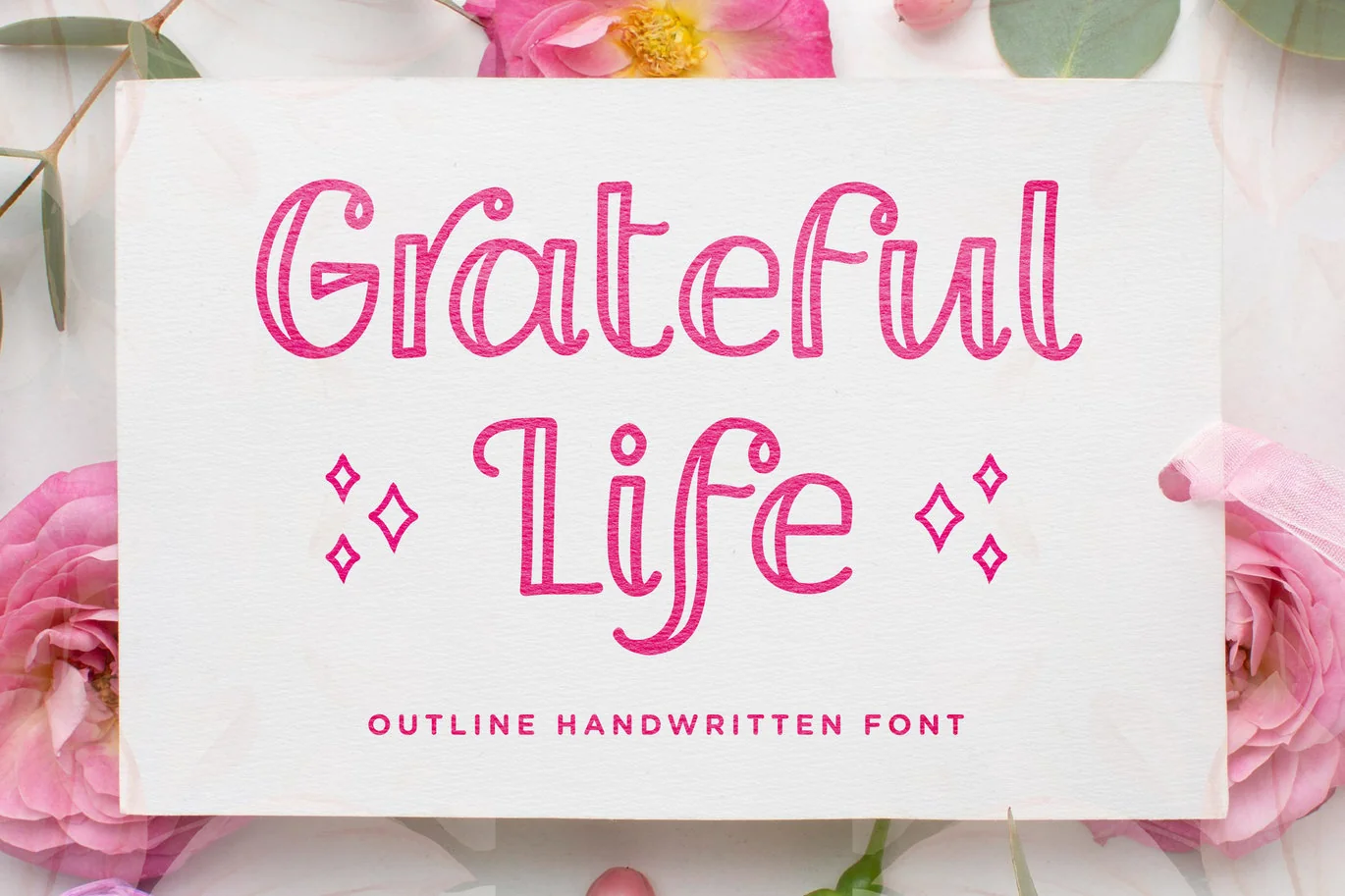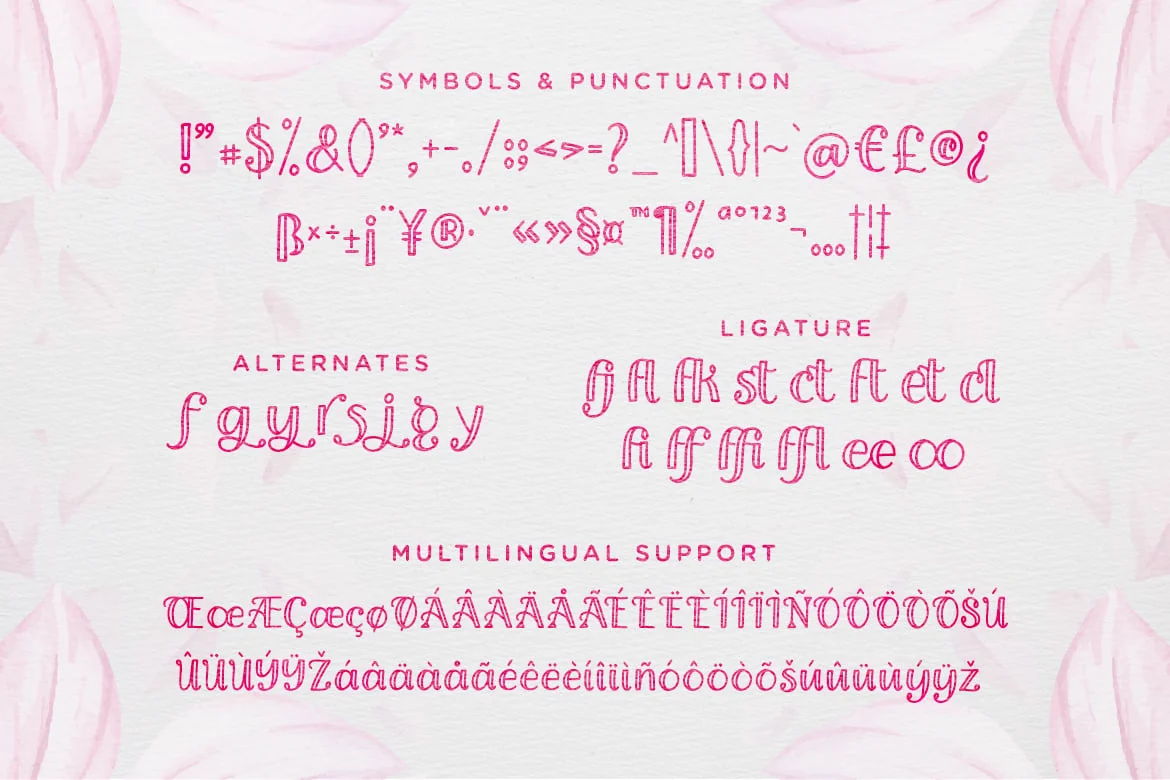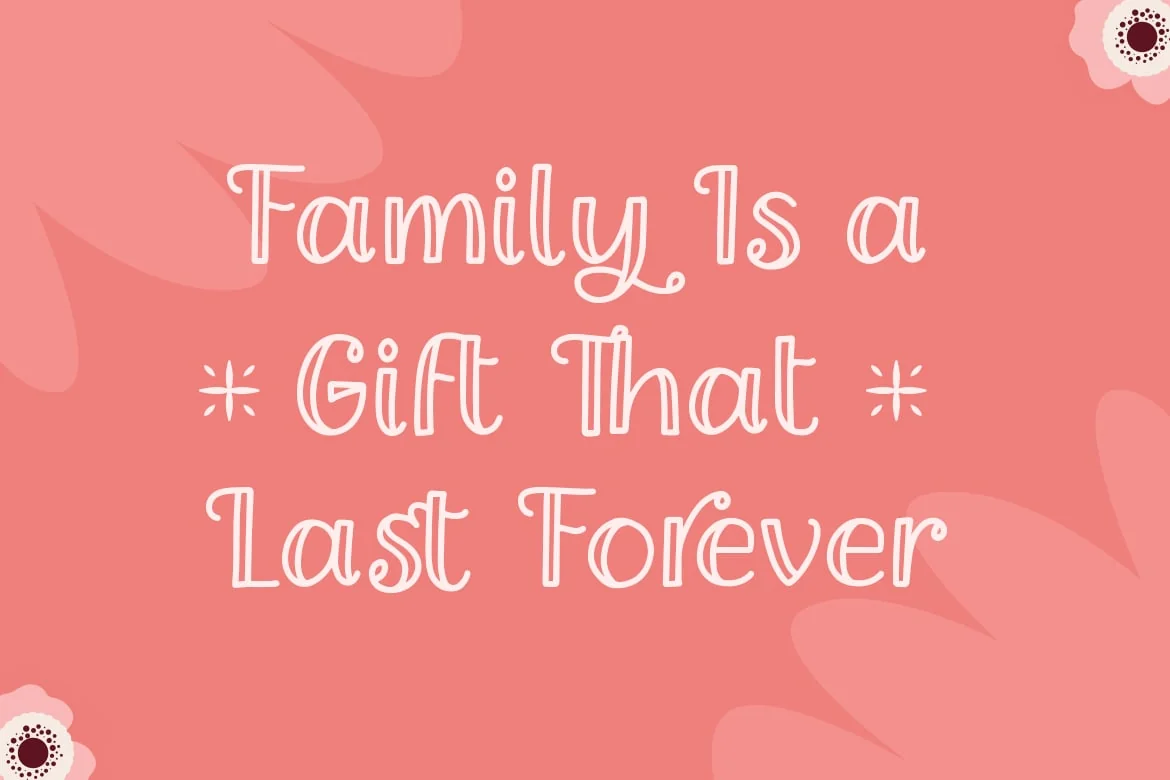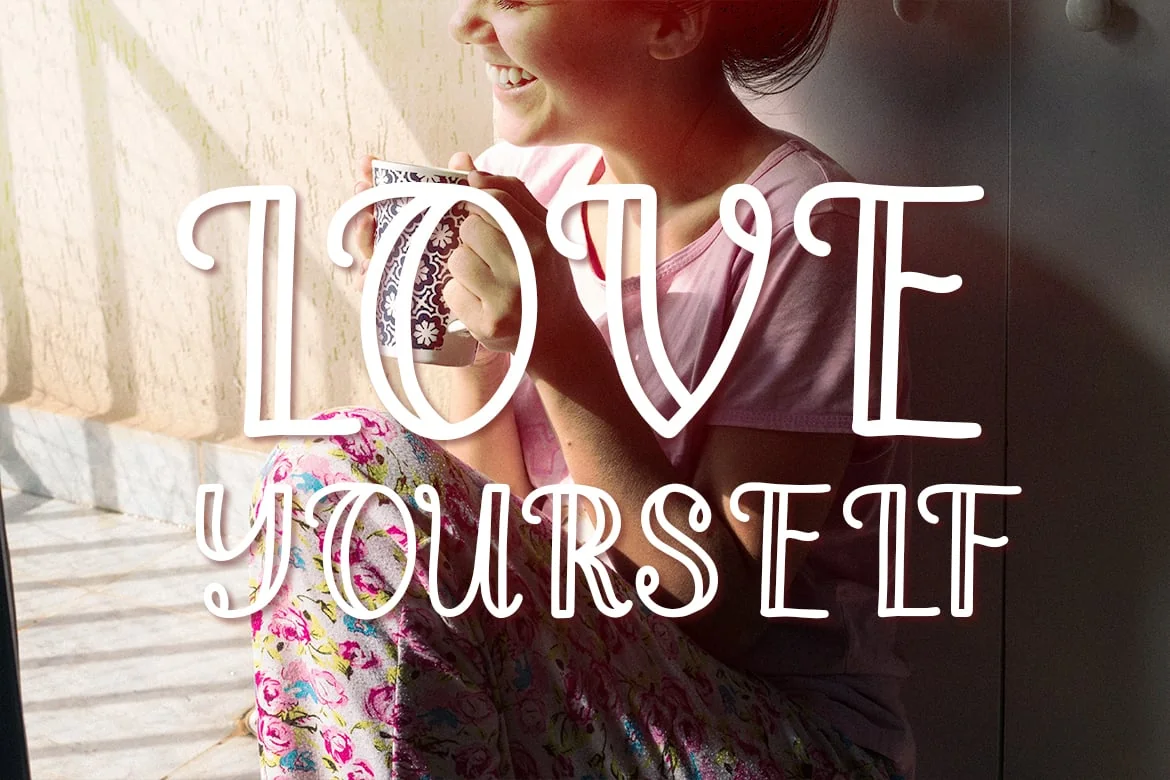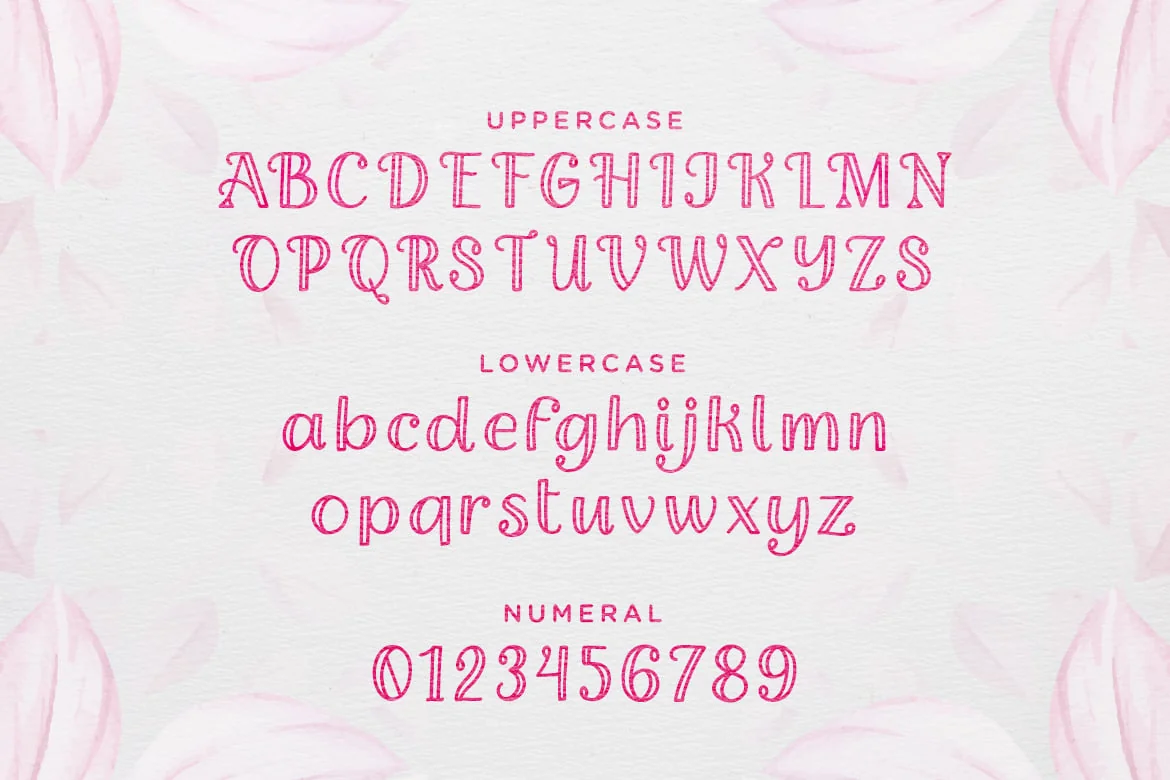
Grateful Life – Outline Handwritten Font
Grateful Life is a girly outline font.
It can be used for various purposes such as quotes, descriptions, mug, invitation, letterhead, signage, labels, news, posters, badges and so much more.